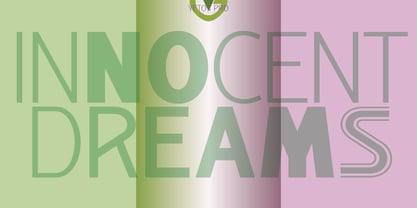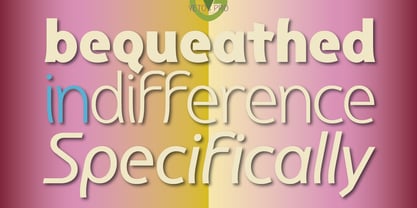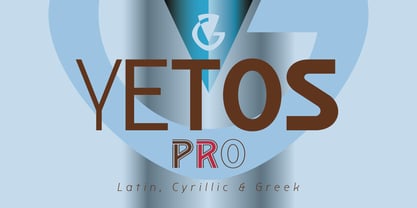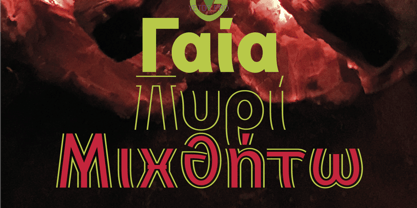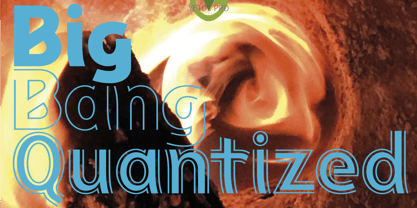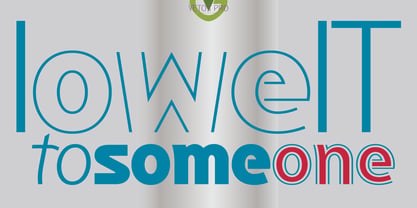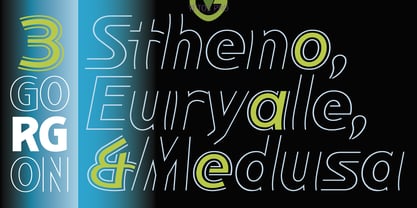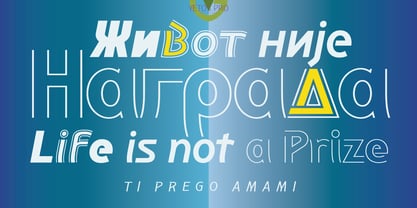
Yetos Pro
The word "Yetos" is derived from the ancient Greek verb "ύω" (to send rain, to make wet). It is noted that both the verb "ύω" and its derivative "Υετός" are found in the Homeric epics and denote in particular the torrential, continuous, continuous rain, the downpour. The third person singular "ύει" (it rains) was usually used.
For a two-tone effect, you can mix the two styles Normal or Italic (YetosPro-ClothLine / YetosPro-ClothFill or YetosPro-ClothLineItalic / YetosPro-ClothFillItalic), by placing two frames or two layers on the same page with exactly the same dimensions and set the Kerning in auto mode.
This series is composed and includes sixteen fonts with 632 glyphs each, with true italics, and supports of course: Latin, Greek & Cyrillic.